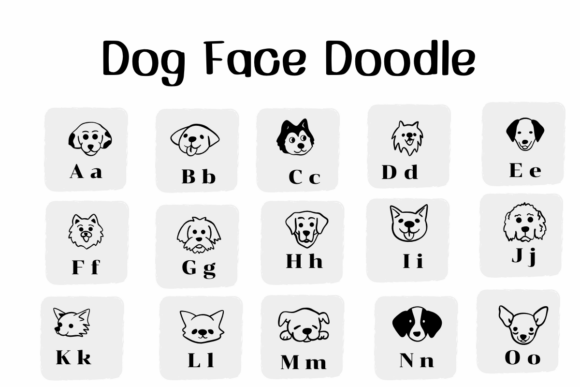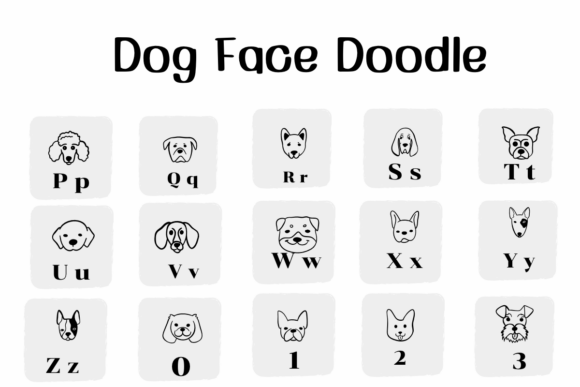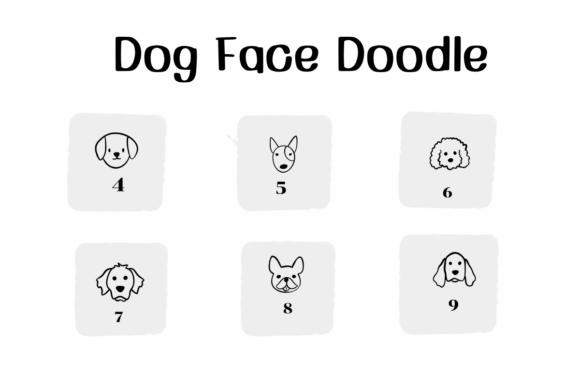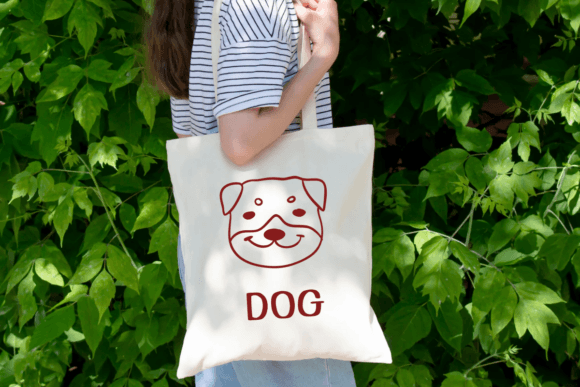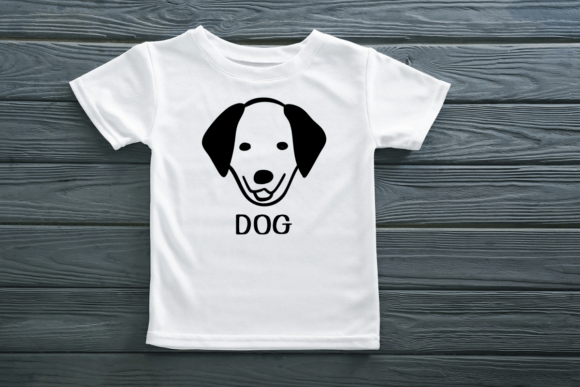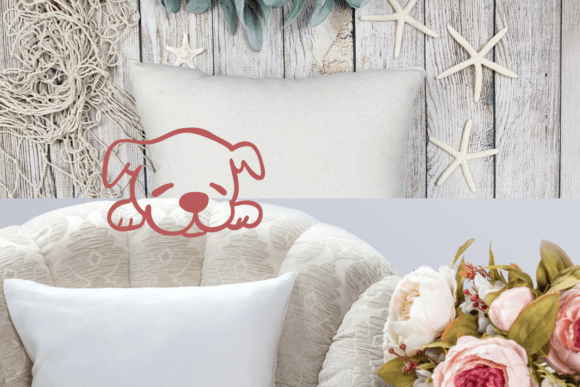
Unleash the Cuteness: Dog Face Doodle Font for Pet-Loving Designers
Are you a designer or crafter looking for a fun and playful way to add a touch of canine charm to your projects? Look no further than the Dog Face Doodle Font, a delightful dingbat font featuring a collection of adorable dog faces in a variety of breeds and styles. Perfect for pet-themed designs, kids’ crafts, greeting cards, logos, and social media graphics, this font is sure to bring a smile to everyone’s face.
What is Dog Face Doodle Font?
Dog Face Doodle Font is a unique and charming dingbat font that showcases a range of lovable dog faces, each one carefully crafted to capture the unique personality and characteristics of different breeds. From playful pugs to happy huskies, and from cute Cavalier King Charles to adorable golden retrievers, this font has something for every dog lover.
Features of Dog Face Doodle Font
- Variety of Breeds and Styles: With Dog Face Doodle Font, you’ll get access to a diverse collection of dog faces, each one showcasing a different breed or style. Whether you’re looking for a realistic representation or a more stylized illustration, this font has got you covered.
- Perfect for Pet-Themed Designs: If you’re working on a project that’s all about dogs, this font is a must-have. From pet store logos to animal shelter posters, Dog Face Doodle Font is the perfect way to add a touch of personality and whimsy to your designs.
- Kids’ Crafts and Educational Projects: Kids love dogs, and with this font, you can create engaging and fun educational projects, such as alphabet charts, posters, and worksheets. The adorable illustrations are sure to capture their attention and inspire their creativity.
- Greeting Cards and Stationery: Who doesn’t love a cute dog on a greeting card? With Dog Face Doodle Font, you can create one-of-a-kind cards for dog lovers, complete with playful and charming illustrations that are sure to bring a smile to the recipient’s face.
- Scalable and Versatile: As a digital font, Dog Face Doodle Font is incredibly versatile and can be scaled up or down to fit any design or project. Use it for social media graphics, logos, or even large-scale signage – the possibilities are endless!
- Mix and Match: Combine different dog faces to create a unique and playful design. You can use the font to create a pattern or a collage of dog faces.
- Experiment with Colors: Don’t be afraid to try out different colors and textures to add depth and interest to your design. You can use solid colors, gradients, or even patterns to create a visually appealing effect.
- Pair with Other Fonts: Dog Face Doodle Font pairs well with a range of other fonts, from clean and simple sans-serifs to more playful and cursive scripts. Experiment with different font combinations to find the perfect match for your project.
| Font Name | Dog Face Doodle Font |
| Author | Ketsarin |